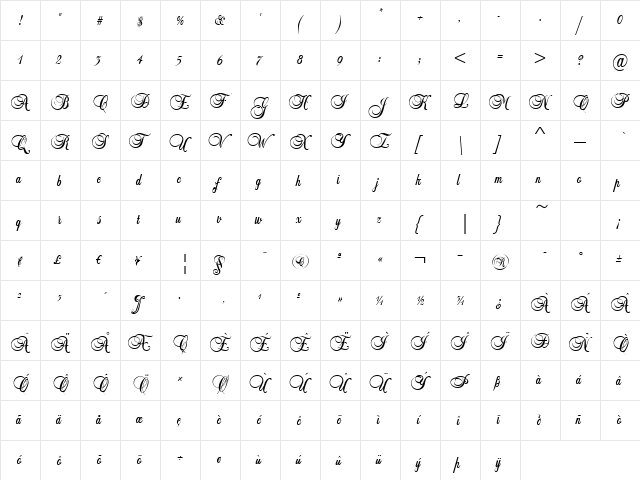
Script-B650 Regular
Design Context for Script-B650 Typeface
Script-B650 flows with the natural rhythm of handwritten lettering, making it ideal for designs that call for warmth and personal expression.
Font Pairing: Combine Script-B650 with a simple geometric sans for maximum contrast — the tension between flowing curves and clean structure is a classic typographic pairing.
Pro Tip: Use Script-B650 for short runs of text — names, titles, or taglines. Extended body copy in script faces tires the eye quickly.